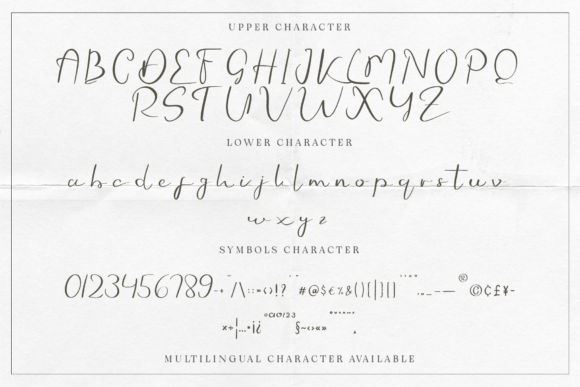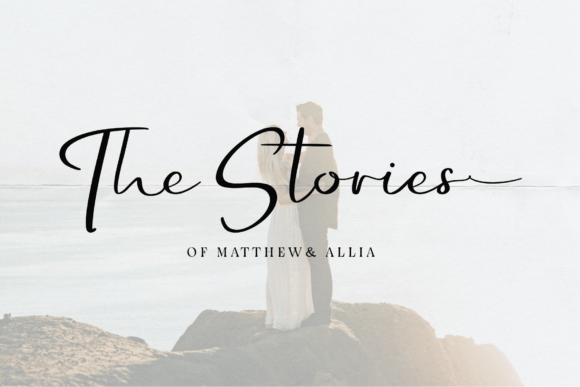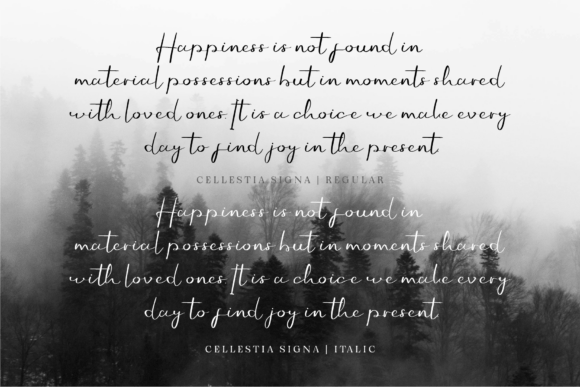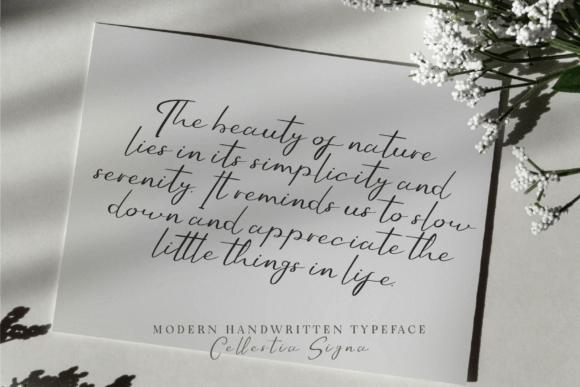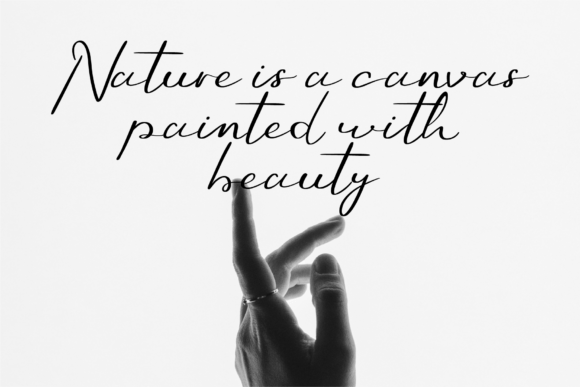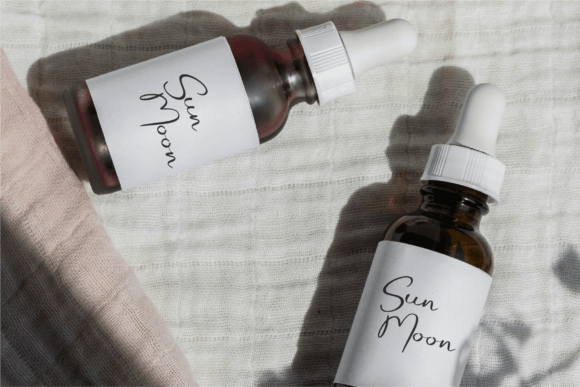
Introduction to Cellestia Signa Font
Have you ever been working on a creative project, pouring your heart and soul into every detail, only to find that the perfect font eludes you? That’s when the search begins – scouring the web for the perfect design resource that captures the essence of your vision. For designers, the right font can make all the difference in elevating a project from good to great.
Celebrating this very pursuit is the stunning Cellestia Signa Font, a masterfully crafted handwritten font that exudes elegance and natural beauty. With its fluid, graceful strokes and well-balanced proportions, this font is a game-changer for any creative project. Whether you’re working on a high-quality design that requires a transparent background or a free download that demands sophistication, Cellestia Signa Font is sure to impress.
Key Features of Cellestia Signa Font
- High-quality design resource suitable for creative projects, offering a sophisticated and elegant aesthetic.
- Comes in a variety of font styles, including bold, regular, and italic, providing flexibility for different design needs.
- Features a transparent background, making it easy to overlay on any image or design without visual clutter.
- Designed with a high resolution of 300 DPI, guaranteeing crisp and clear text display in both print and digital media.
- Includes a comprehensive character set, supporting a wide range of languages and making it suitable for global design projects.
Honest Review: Cellestia Signa Font
I recently stumbled upon the Cellestia Signa Font and I must say it’s been a game-changer for my creative projects. This font has a unique blend of elegance and modernity that can instantly elevate the design of any project.
- High-quality design that’s perfect for various creative projects
- Transparent background, making it easy to use with any design resource
- Wide range of applications, from digital to print media
However, I did encounter some limitations while using the Cellestia Signa Font. ⚠️
- Not suitable for projects requiring a bold or oversized font
- May require some tweaking to achieve the desired spacing and alignment
Overall, I’m impressed with the Cellestia Signa Font. It’s a great addition to any designer’s toolkit, and its high quality makes it a reliable choice for various creative projects. If you’re looking for a versatile and stylish font, I highly recommend giving it a try.
Tips for Getting the Most Out of Cellestia Signa Font
To get the most out of the Cellestia Signa Font, try the following:
- Experiment with different font sizes and styles to add visual interest to your design.
- Combine the Cellestia Signa Font with other design elements, such as images and graphics, to create a unique and eye-catching design.
- Use a transparent background to give your design a clean and modern look.
The Cellestia Signa Font is perfect for a variety of creative projects, including:
- Graphic design and visual identity
What is the recommended resolution for using the Cellestia Signa Font in high-quality designs?
We recommend using the Cellestia Signa Font at a minimum resolution of 300 DPI (dots per inch) for high-quality designs. This will ensure that the font appears crisp and clear, even when scaled up or printed at large sizes.